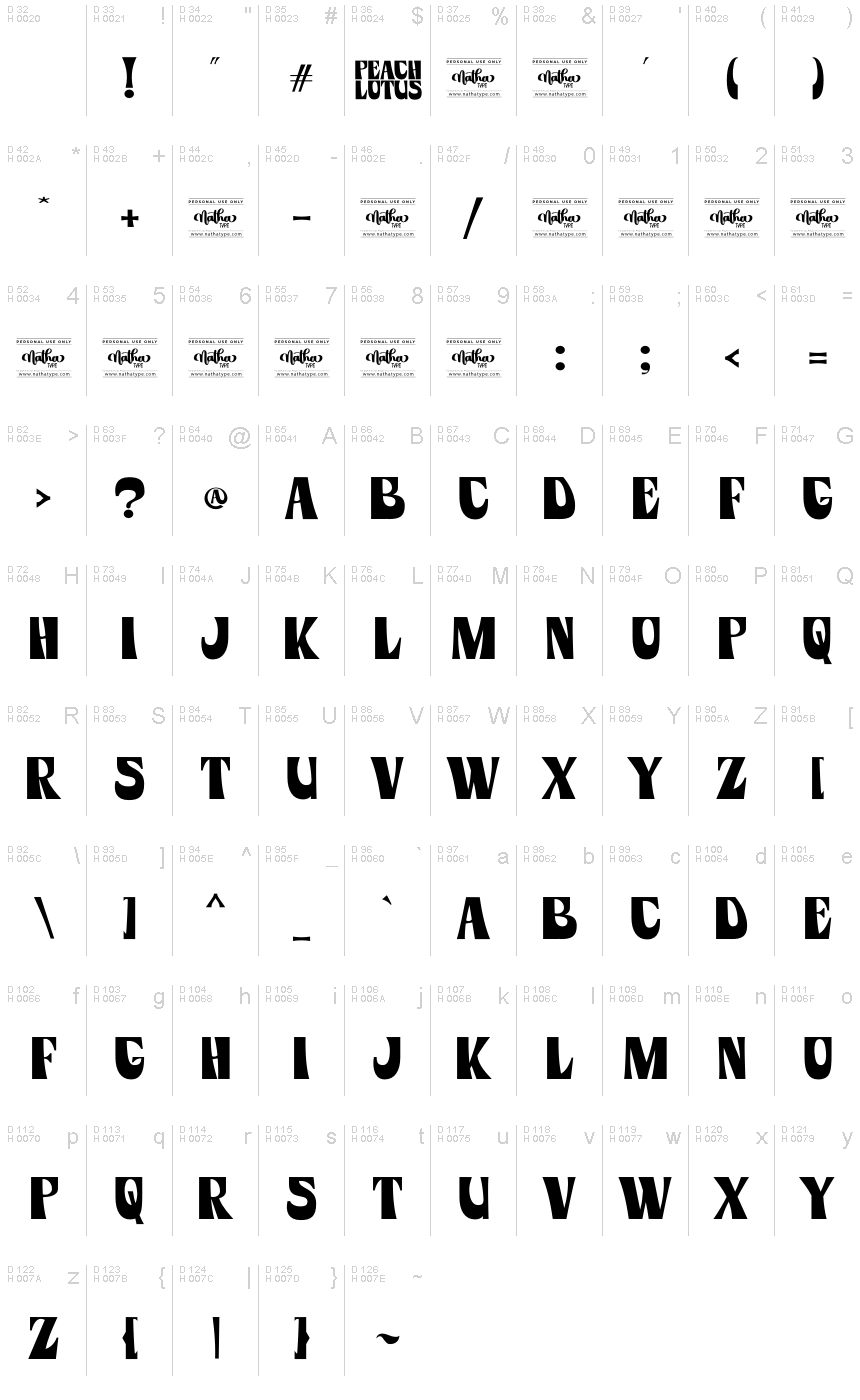
Peach Lotus Personal Use
Peach Lotus font by Nathatype is a groovy display typeface inspired by Art Deco influences and geometric shapes. The bold font conveys elegance and sophistication with a hint of vintage style, ideal for high-end branding. A modern flair distinguishes this font, making it perfect for advertisements, editorial headlines, and premium digital interfaces.